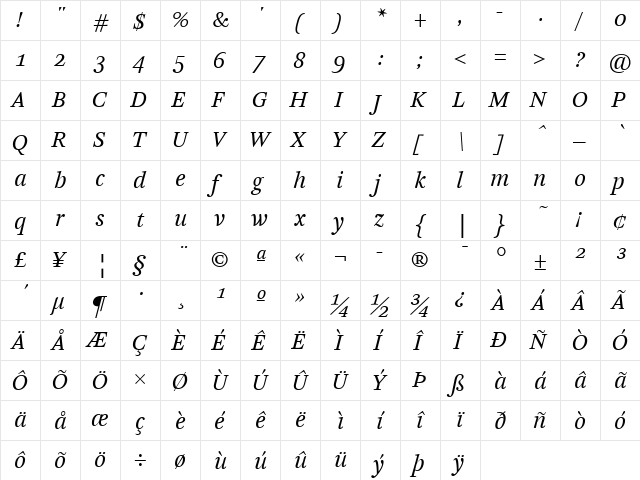
Arnhem-BlondItalic Regular Font Preview
Arnhem-BlondItalic Regular
Arnhem-BlondItalic Regular Font Details
| Designer | Fred Smeijers |
Design Context for Arnhem-BlondItalic Typeface
Arnhem-BlondItalic offers clean, dependable letterforms without strong stylistic allegiance, making it a practical choice for designers who need flexibility. Its italic angle brings a sense of urgency and motion to the letterforms.